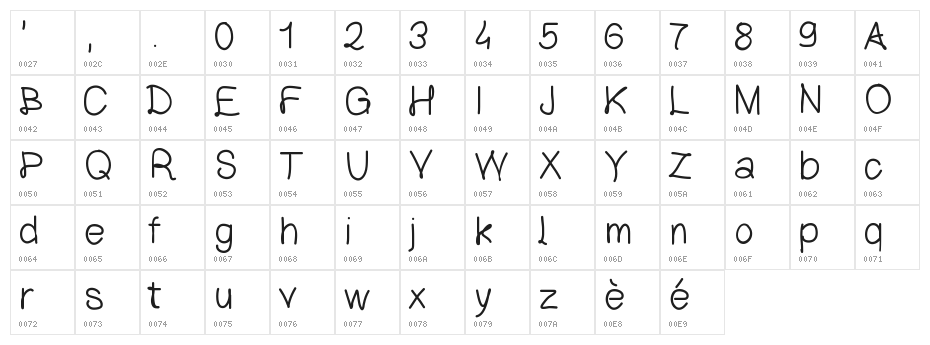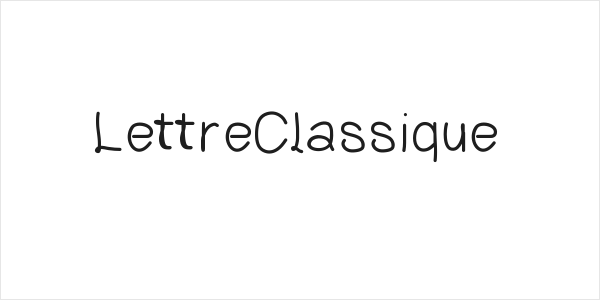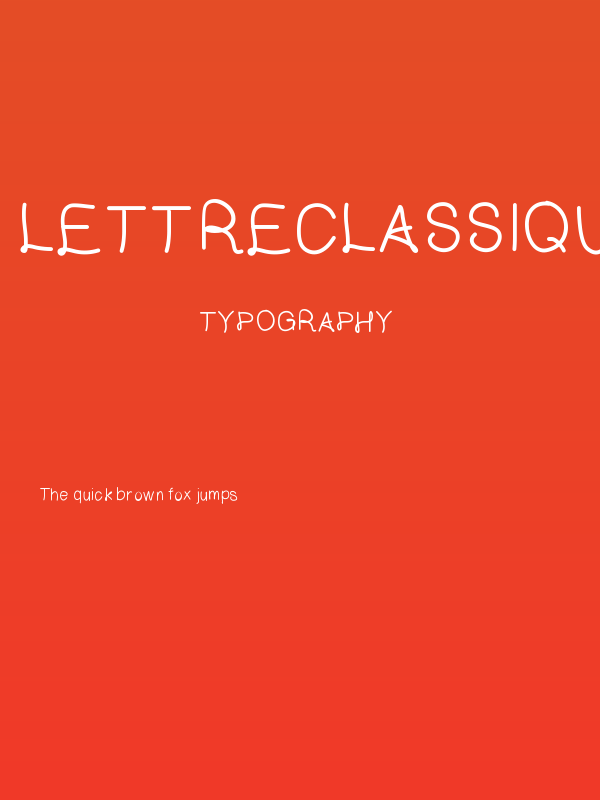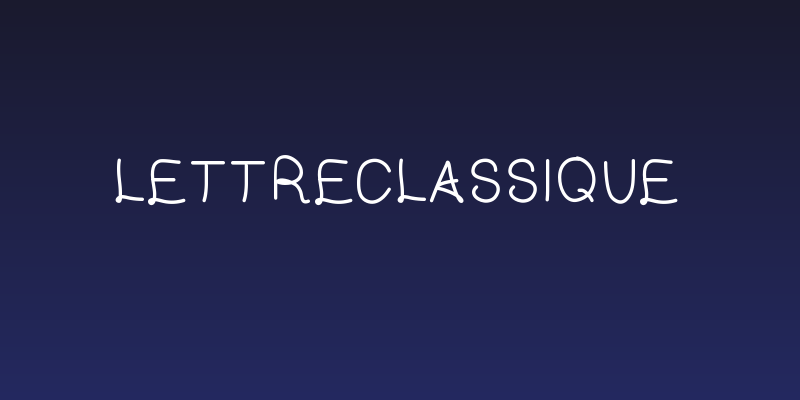
LettreClassique Font
LettreClassique Description
This font features a playful and whimsical design with a handwritten style. The characters are rounded and have a casual, friendly appearance. The uppercase letters are slightly more structured, while the lowercase letters maintain a consistent flow, adding to the font's charm. The numbers are clear and easy to read, with a similar playful touch. Special characters are included, maintaining the overall style. This font is ideal for projects that require a personal and approachable feel.
| Proposed Projects | Ideal for children's books, greeting cards, informal invitations, and playful branding. |